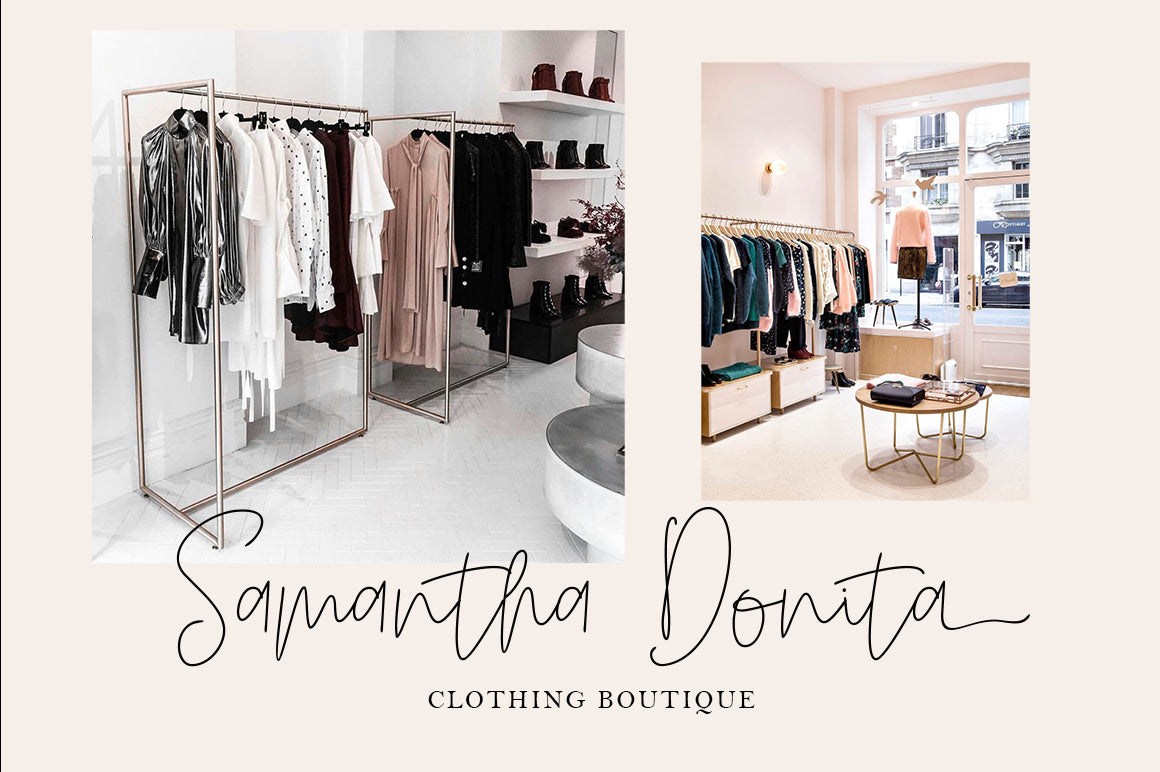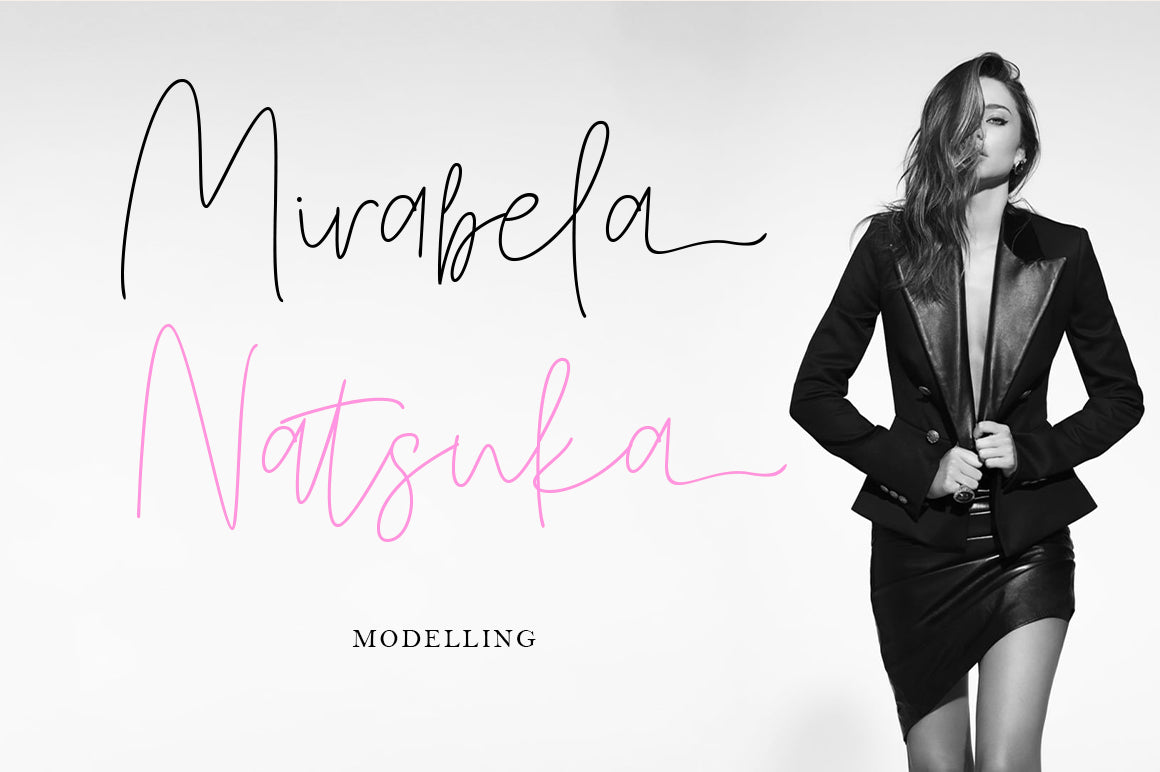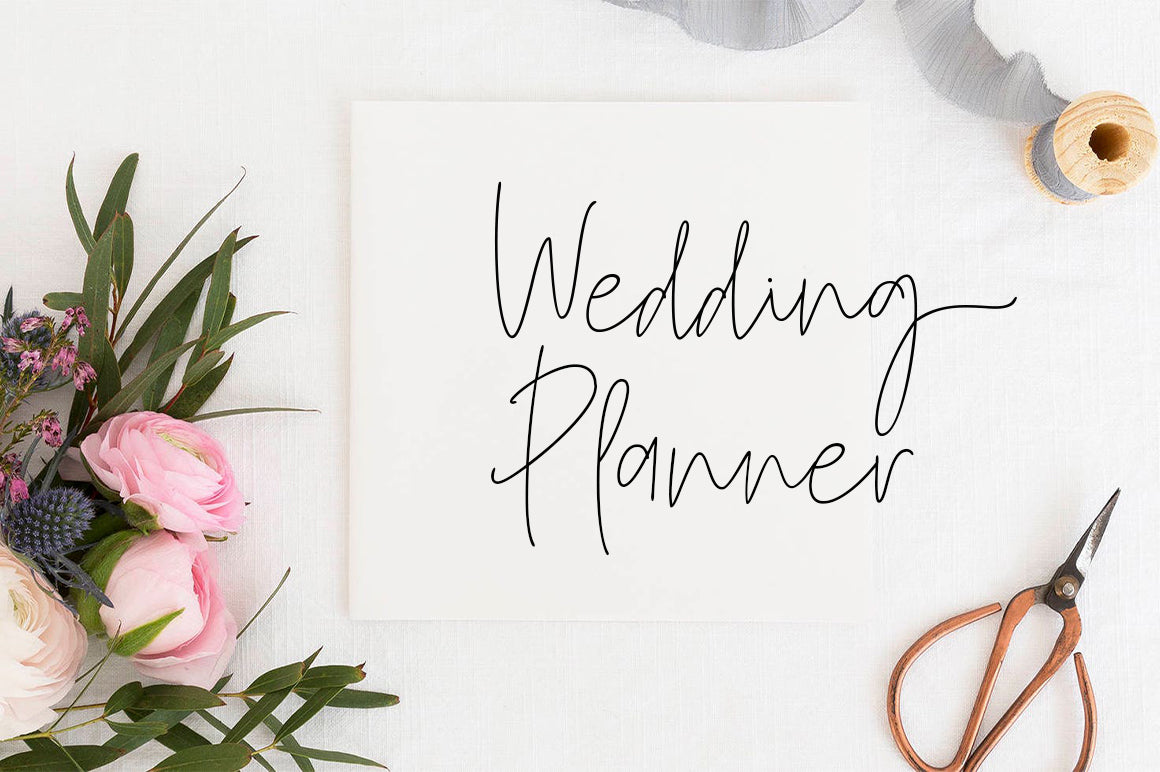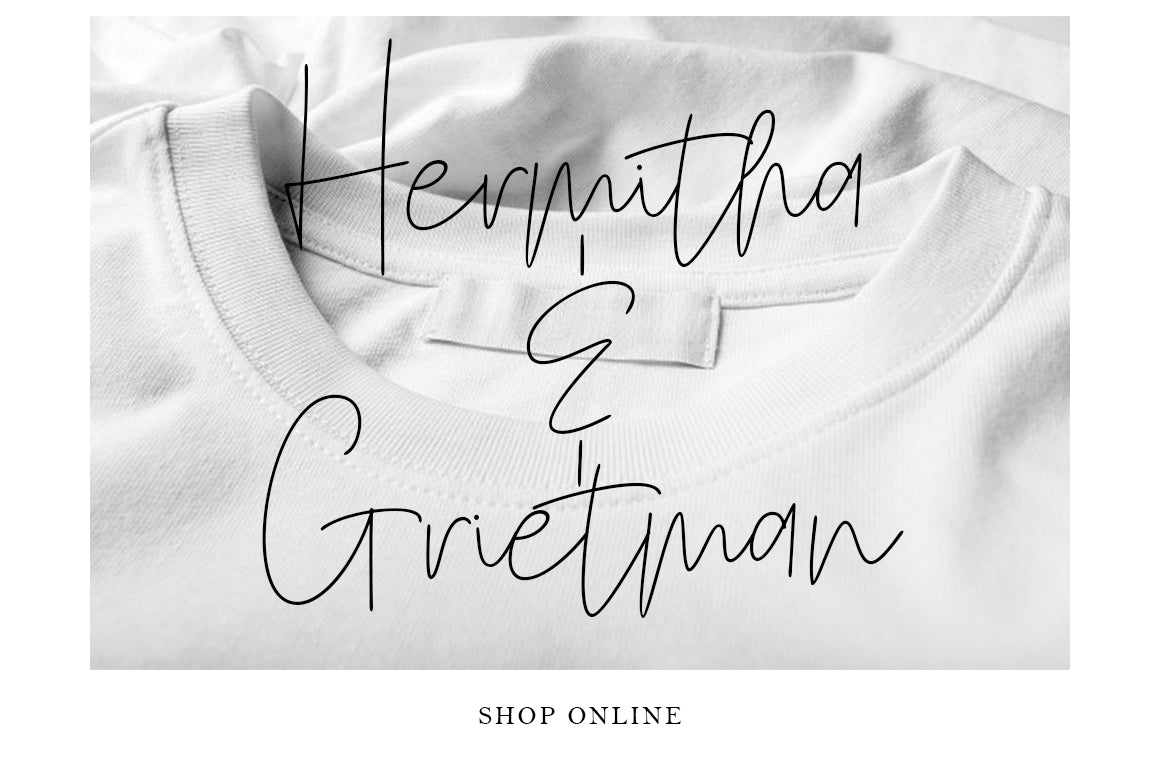
About Best Monthea
Best Monthea signature font, with a natural & stylish flow. Best Monthea is perfect for many different projects such as logos & branding, invitation, stationery, wedding designs, social media posts, advertisements, product packaging, product designs, labels, photography, watermarks, special events, or anything This purchase includes an OTF & TTF font file. You will be able to use this font in ANY program! Thank you